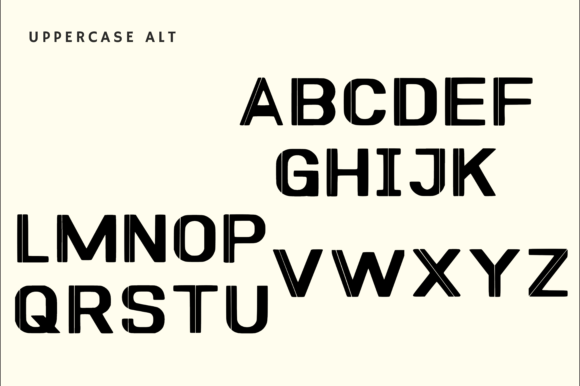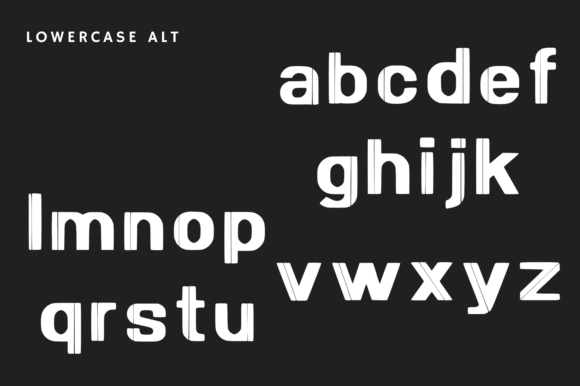
The Designer’s Dilemma: How I Fell in Love with Dissident Font
I still remember the frustration of working on a design project, hours spent scrolling through font libraries, and yet, nothing seemed quite right. The client wanted something trendy, modern, and eye-catching, but I just couldn’t find the perfect fit. That’s when I stumbled upon Dissident Font, and let me tell you, it was love at first sight! 💡
Dissident is an incredibly cool and modern display font that instantly elevated my design game. Whether you use it for custom designs, DIY crafts, or just any creation that requires a trendy vibe, this font will be an amazing choice. In this article, I’ll share my honest review, a practical guide on how to use it, and some valuable insights into the world of typography.
My Honest Review of Dissident Font
- ✅ Unique and Modern Design: Dissident Font boasts a sleek, contemporary look that’s perfect for making a statement.
- ✅ Highly Versatile: Use it for posters, social media graphics, logos, or even DIY crafts – the possibilities are endless!
- ✅ Easy to Read: Despite its modernity, the font remains surprisingly legible, even at smaller sizes.
- ✅ OpenType Features: Dissident Font comes with a range of OpenType features, including stylistic alternates and glyphs, giving you plenty of creative freedom.
- ⚠️ Limited Use Cases for Body Text: While Dissident Font is amazing for display purposes, it might not be the best choice for lengthy body text due to its bold and modern design.
- ⚠️ Some Characters May Require Adjustment: Depending on your design, you might need to tweak certain characters to ensure optimal spacing and readability.
The Story Behind Dissident Font
While the origins of Dissident Font might be shrouded in mystery, it’s clear that the designer had a vision of creating something bold, modern, and versatile. Perhaps inspired by the world of graffiti or urban art, Dissident Font embodies a sense of rebellion and creativity.
Q: What makes Dissident Font so special?
A: Dissident Font’s unique blend of modernity and legibility makes it perfect for a wide range of design applications.
Q: Is Dissident Font suitable for body text?
A: While it’s possible to use Dissident Font for body text, it’s primarily designed for display purposes and may not be the best choice for lengthy text.